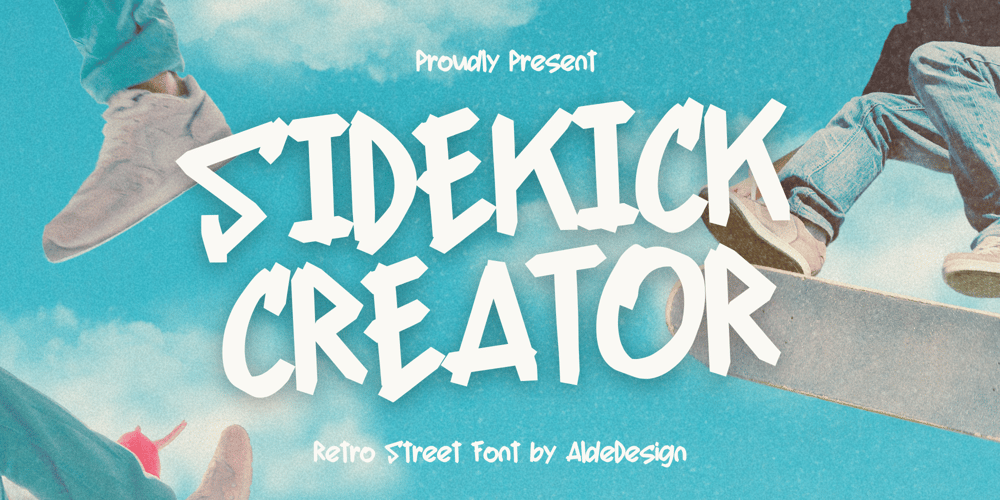
Sidekick Creator Font Family was designed by Alde Saputro and published by Aldedesign. Sidekick Creator contains 1 styles and family package options. Sidekick Creator – Decorative Urban StreetDiscover a fusion of urban edge and decorative finesse in our exclusive collection of fonts. From gritty graffiti to captivating street art styles, our fonts add a unique flair to your designs. Elevate your digital projects with typography that speaks volumes and captures attention. Explore our diverse range today to find the perfect font for your next project, crafted to meet the demands markets. Enhance your online presence with fonts that exude creativity and urban charm.Included in the package:* Standard glyphs* Multilingual support* Compatible with both PC & Mac, with easy installationCompatible with Adobe Illustrator, Adobe Photoshop, Adobe InDesign, and even Microsoft Word. PUA Encoded Characters – Fully accessible without extra design software. The fonts also come with multilingual support.Note: Preview images/photos/vectors are excluded, used solely for illustrative purposes.